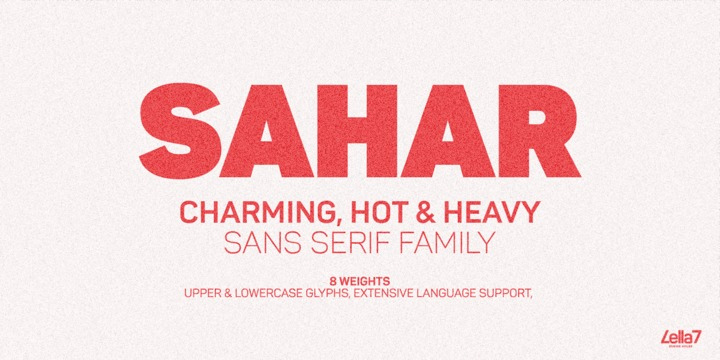
Sahar Sans Font is perfect for modern Middle Eastern branding, international business communications, cultural institution materials, global tech companies, contemporary Arabic publications, multicultural design projects, diplomatic documents, modern mosque signage, cultural bridge organizations, and progressive editorial layouts.
Sahar Sans Font is exciting because it bridges Eastern and Western typographic traditions with remarkable grace, creating a sans-serif typeface that embodies cultural harmony and global sophistication. This font brings international elegance and cross-cultural understanding to any project, making it ideal for organizations and brands that value diversity, cultural sensitivity, and global communication. Its balanced design and universal appeal create an atmosphere of inclusive professionalism that resonates with multicultural audiences worldwide.
Sahar Sans Font family includes thin, light, regular, medium, bold, and black weights, each available in roman and italic styles with extensive multilingual support, providing designers with comprehensive tools for creating culturally sensitive typography and globally accessible brand systems.
This sophisticated international typeface combines contemporary design principles with cultural awareness, making Sahar Sans Font Free Download an exceptional choice for projects requiring both modern functionality and cultural sensitivity. The font's carefully crafted letterforms feature balanced proportions and neutral character that ensure excellent readability across different languages while respecting diverse typographic traditions.
Whether you're developing international brand identity, designing multicultural publications, or creating diplomatic communications, Sahar Sans Font delivers outstanding versatility and cultural sophistication. The font excels across all platforms and languages, making it ideal for global organizations that require consistent brand voice across diverse markets and cultural contexts.
International design professionals choose Sahar Sans Font for its ability to communicate professionalism and cultural awareness while providing the reliability needed for complex multilingual applications. The font's inclusive character makes it particularly suitable for international NGOs, global corporations, and cultural institutions.
Each character demonstrates thoughtful consideration of global readability standards and cultural sensitivity, featuring the balanced elegance that facilitates clear communication across linguistic and cultural boundaries.